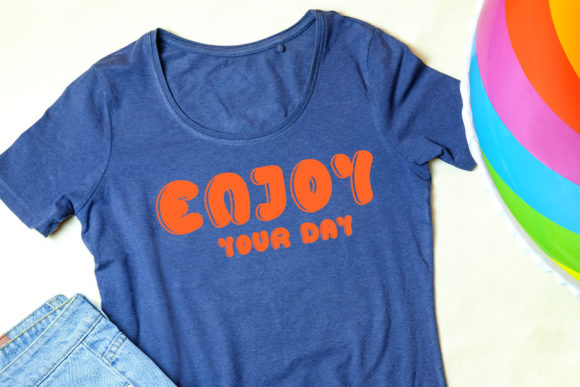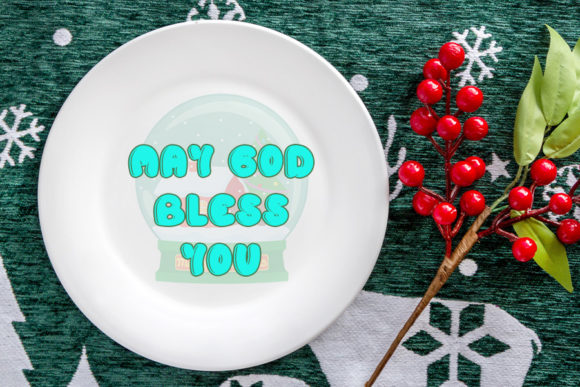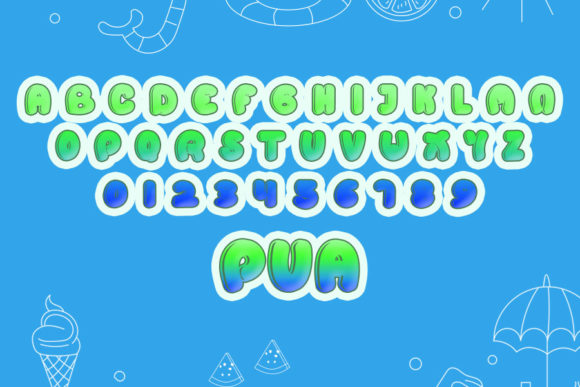
Introduction to Candy X-mas Font
Candy X-mas is a bold, playful and bubbly display font.
Whether you use it for cartoon related designs, children games or just any creation that requires a lovely touch, this font will be an amazing choice .
Candy X-mas Font offers exceptional quality and versatility, making it a valuable addition to your design toolkit. Whether you’re creating for personal projects or commercial use, Candy X-mas Font delivers professional results.